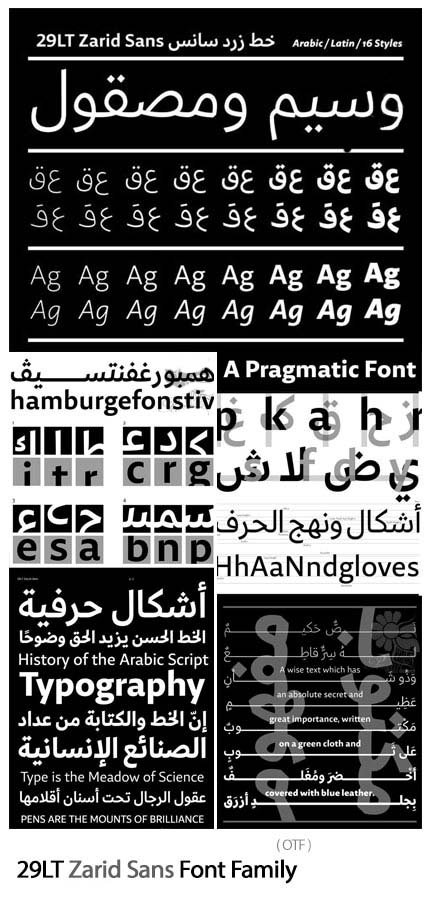
29LT Zarid Sans Font Family
Zard Sans is a thoughtfully crafted sans-serif typeface that brings together Arabic and Latin scripts in perfect harmony. With its clean lines, modern proportions, and cohesive design language, this bilingual font allows you to create sophisticated projects that flow seamlessly between languages while maintaining visual consistency.
Arabic Script:
- Clean, contemporary Arabic sans-serif letterforms
- Proper character connections and positioning
- Full support for Arabic diacritics and marks
- Modern geometric influence with excellent readability
- Optimized for digital and print applications
English/Latin Script:
- Coordinated sans-serif design matching Arabic style
- Complete uppercase and lowercase characters
- Numerals, punctuation, and special characters
- Harmonious weight and proportion with Arabic
- Clean, professional appearance for all applications
- Harmonious Design: Both scripts share clean sans-serif aesthetics
- Cultural Authenticity: Properly designed Arabic script with contemporary appeal
- Modern Aesthetic: Clean, geometric design language for today’s projects
Key Features of Zard Sans Font:
- Coordinated Arabic and English sans-serif designs
- Complete character sets for both scripts
- Clean, contemporary aesthetic
- Perfect for modern bilingual projects